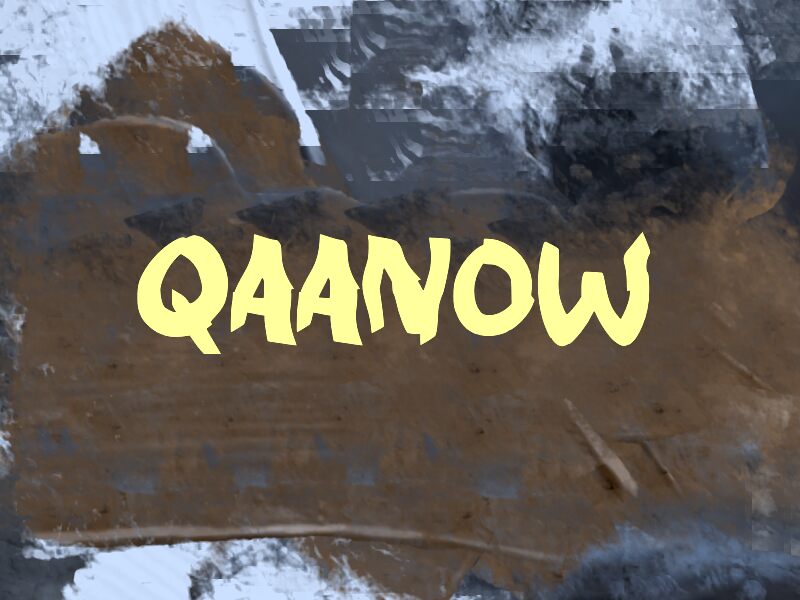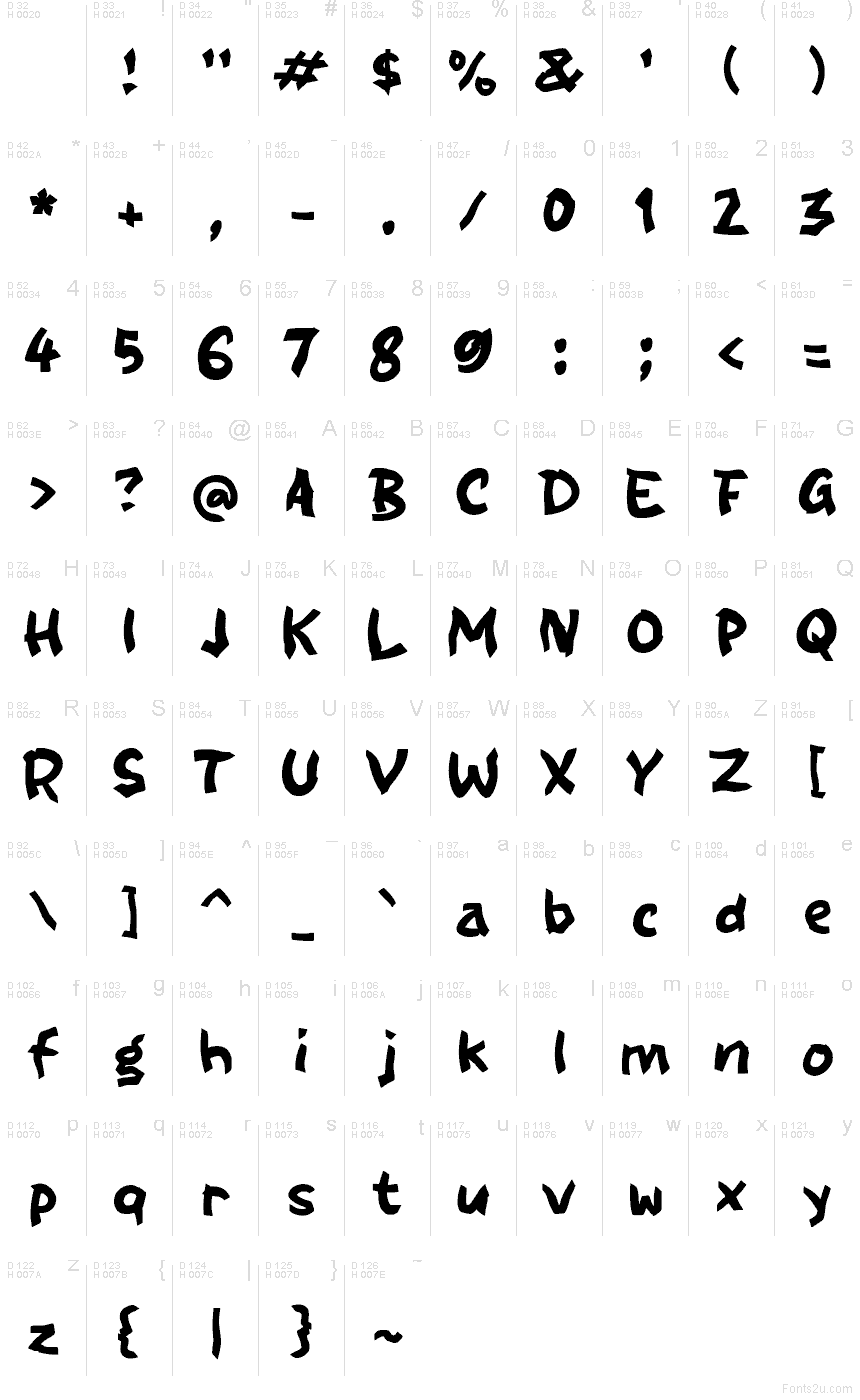
QAANOW
Qaanow font by wep is a free graffiti font that captures the raw energy of a fast, inky tag. Its thick, brushed strokes feel like fresh marker on concrete—loose, slightly messy, and full of motion. The rounded forms keep it approachable while the irregular rhythm adds attitude, making every word look like it was written in one confident sweep.
Using Qaanow, you can inject street-style character into streetwear logos, skate and BMX branding, hip-hop or EDM album covers, bold event flyers, stickers, and social media graphics. This free font shines when it’s big and loud, letting the chunky, painted texture do the talking. For supporting text, pair it with a clean geometric sans in smaller sizes to keep the overall layout readable while Qaanow steals the spotlight.